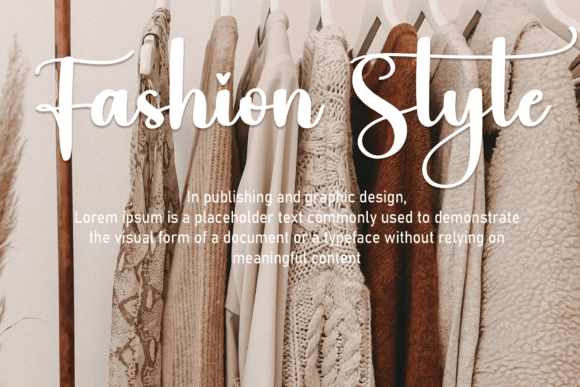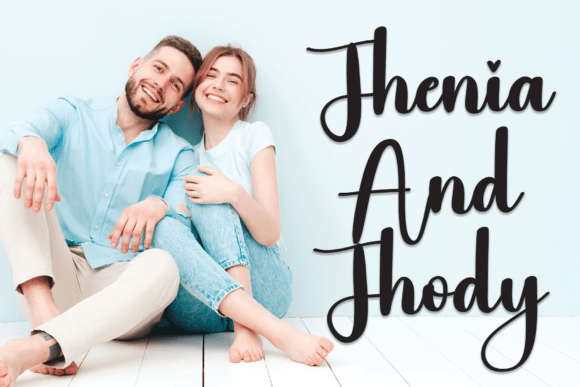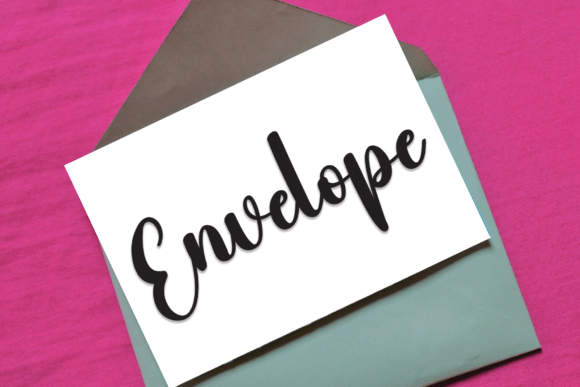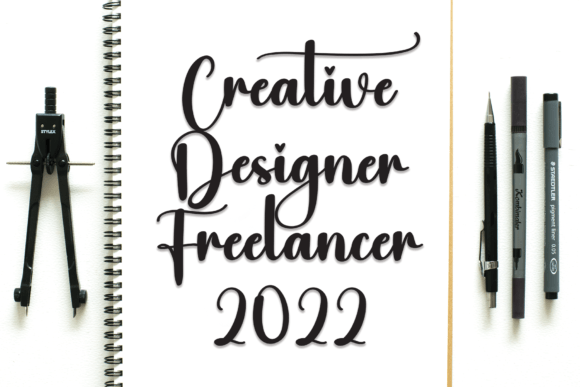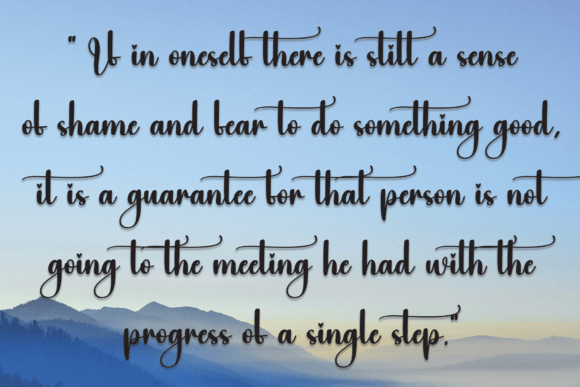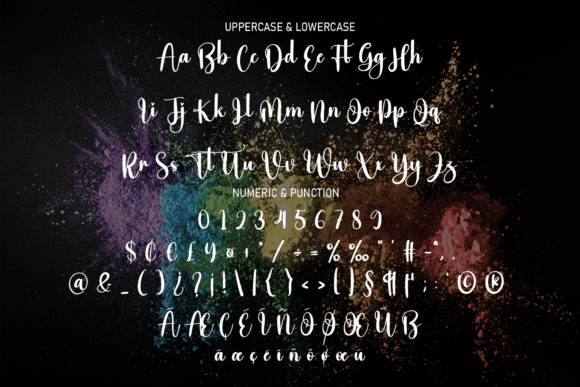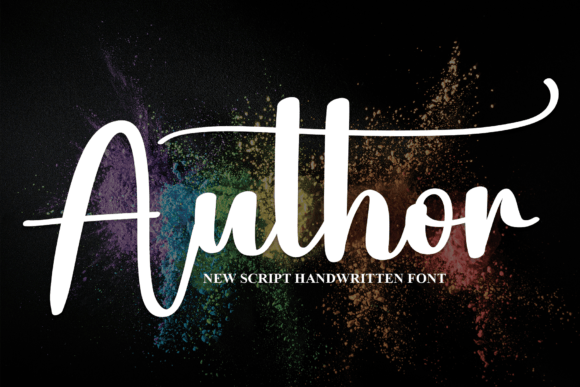
The Author Font: A Handwritten Style for Creative Projects
I’ll never forget the moment I stumbled upon the perfect font for my design project. I was working on a wedding invitation suite, and my client was adamant that they wanted a handwritten touch. I had spent hours scouring the internet for the ideal font, but nothing seemed quite right. That was until I discovered the Author Font. Its elegant, cursive script and charming imperfections immediately won me over. In this article, I’ll share my experience with the Author Font, its features, and how to make the most of it in your creative projects.
A Personal Review of Author Font
- ✨ Elegant and sophisticated, yet approachable and friendly
- 💫 Beautifully crafted with unique character variations
- 🎨 Perfect for adding a personal touch to designs, from wedding invitations to social media graphics
While the Author Font is an excellent choice for many projects, there are a few things to keep in mind:
- ⚠️ Some characters may not work well in all contexts, such as all-caps headings
- 🤔 Limited availability of certain diacritical marks
- Experiment with OpenType features, such as stylistic alternates, to add visual interest
The Story Behind Author Font
The Author Font was designed with the intention of creating a beautiful, handwritten font that captures the elegance and sophistication of traditional calligraphy. Inspired by the works of classic calligraphers, the Author Font’s creator aimed to craft a font that would bring a touch of personality and whimsy to designs.
A: The Author Font is versatile and can be used in a variety of contexts, from wedding invitations to social media graphics. Experiment with different font sizes, colors, and OpenType features to find the perfect fit for your project.
A: Yes, the Author Font can be paired with other fonts to create visually appealing combinations. Experiment with different font pairings to find the perfect balance for your design.